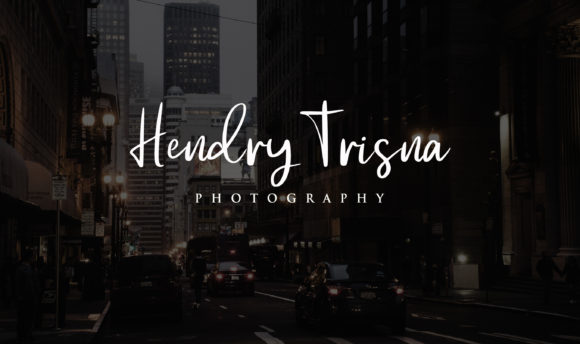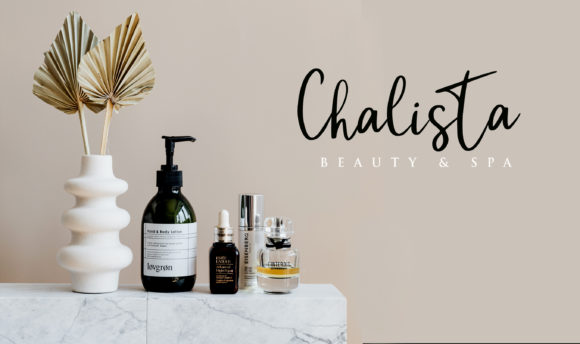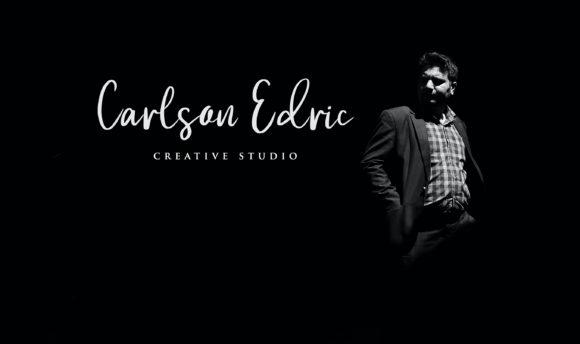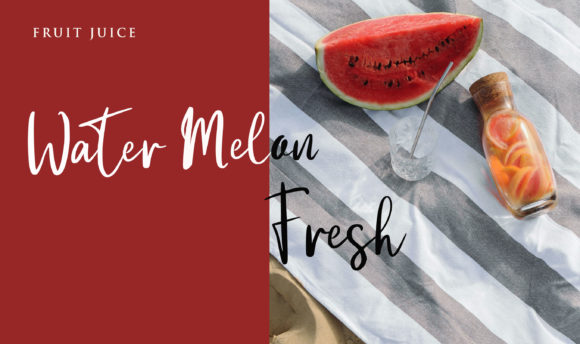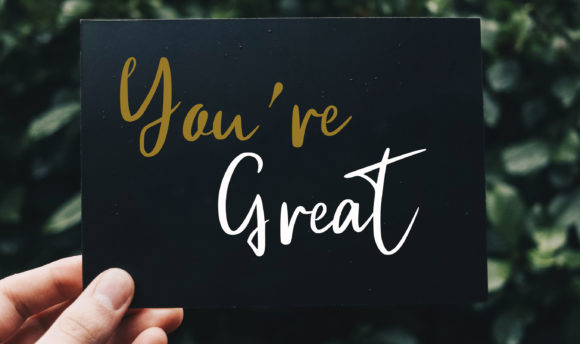
Introduction to Journalist Font
Have you ever been working on a creative project and suddenly, a spark of inspiration hits you? For many designers, it’s the moment when the perfect font is found, and everything falls into place. For me, that moment was when I stumbled upon the Journalist Font. This beautiful, trendy handwritten font has become my go-to choice for any project that requires a touch of elegance and sophistication.
As a design enthusiast, I can attest that the Journalist Font is a game-changer. Its unique, hand-written style makes it perfect for logos, brochures, and social media covers. With its transparent background and free download option, it’s a valuable resource for designers of all levels. Whether you’re working on a high-quality magazine or creating brand clothing, the Journalist Font is sure to elevate your design to the next level.
- High-quality design with a transparent background, ideal for creative projects.
- Comes in a single weight, designed to be versatile and suitable for a wide range of creative projects.
- Characteristics include clean lines, modern typography, and a neutral color palette, making it a great choice for various design needs.
Honest Review: Journalist Font
Here are some things that work well with the Journalist Font:
- ✨ High quality typography: The Journalist Font is clean, crisp, and well-designed, making it perfect for a variety of applications.
- ✨ Versatility: This font is suitable for both print and digital designs, giving designers the flexibility to use it in a range of creative projects.
- ✨ Transparent background: The font’s transparent background allows for easy layering and customization, making it a valuable design resource.
- ⚠️ Limited font weights: The Journalist Font only comes in a few font weights, which may not be ideal for projects that require a wide range of weights and styles.
- ⚠️ Limited language support: The font may not support all languages, which could be a limitation for designers working on projects with multiple language requirements.
Overall, I’m impressed with the Journalist Font. While it may have some limitations, its high quality typography, versatility, and transparent background make it a valuable design resource for any designer working on creative projects.
Combine it with a high-quality image for a striking design.
Experiment with different font sizes and styles to achieve the desired effect.
The Journalist Font is ideal for use in news articles, blog posts, and other written content.
It’s also suitable for use in presentations, posters, and flyers.
Use it to create a professional and elegant design resource for your creative project.